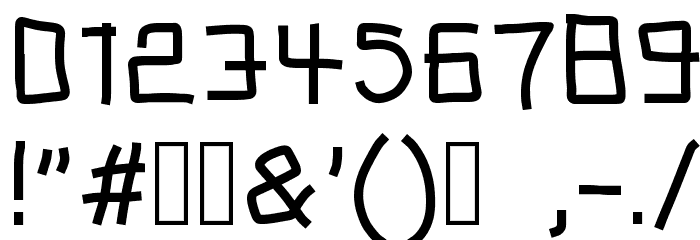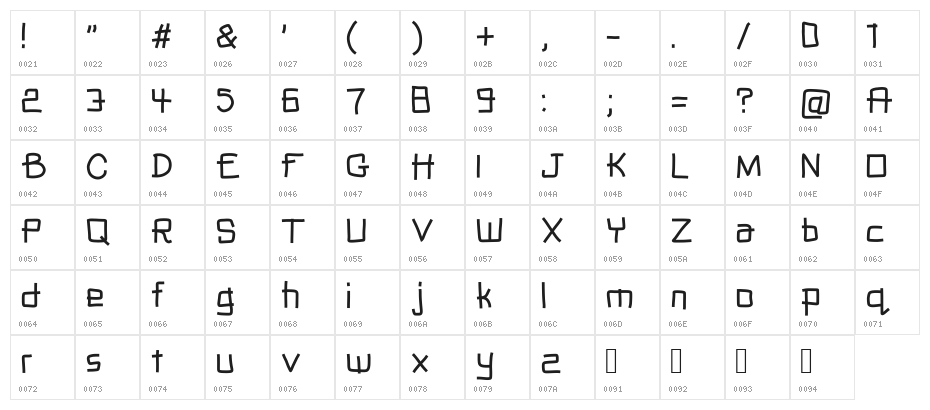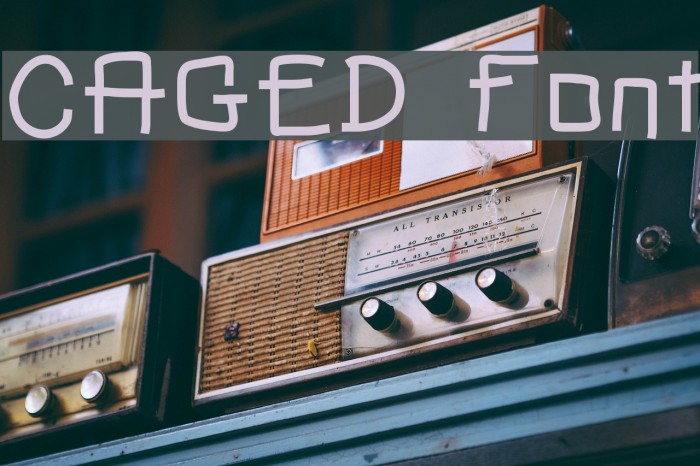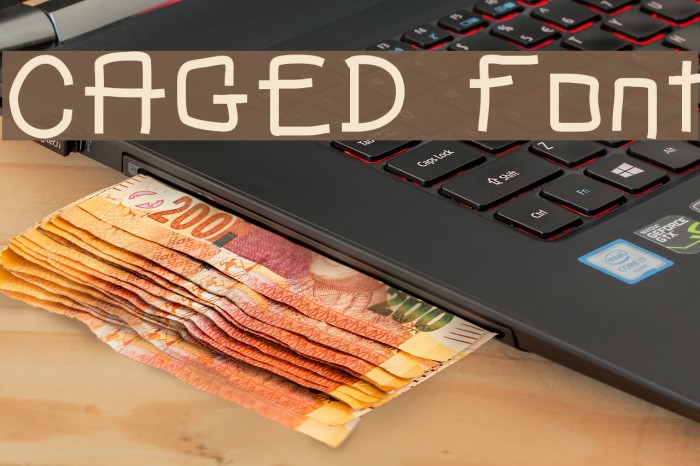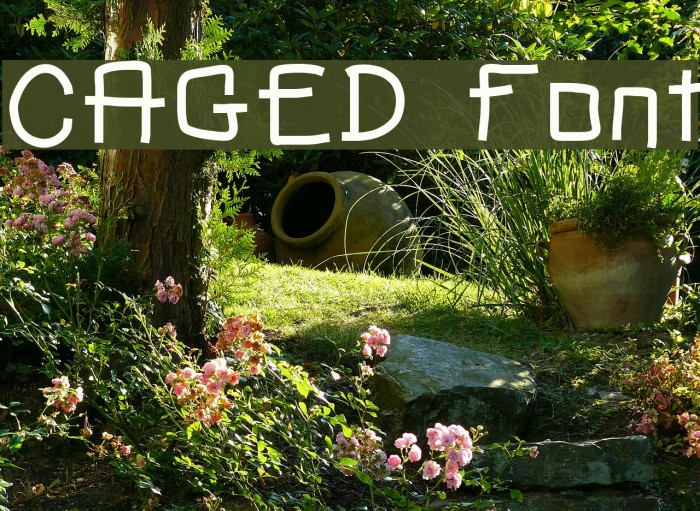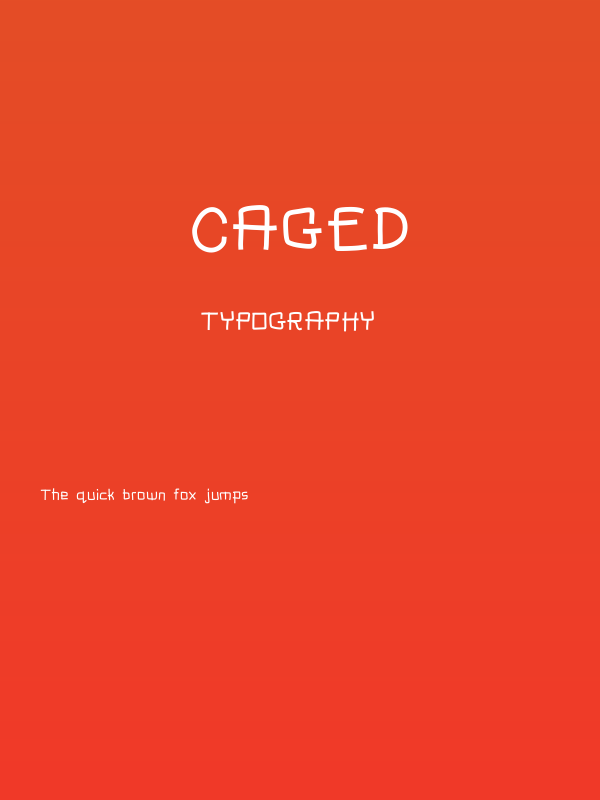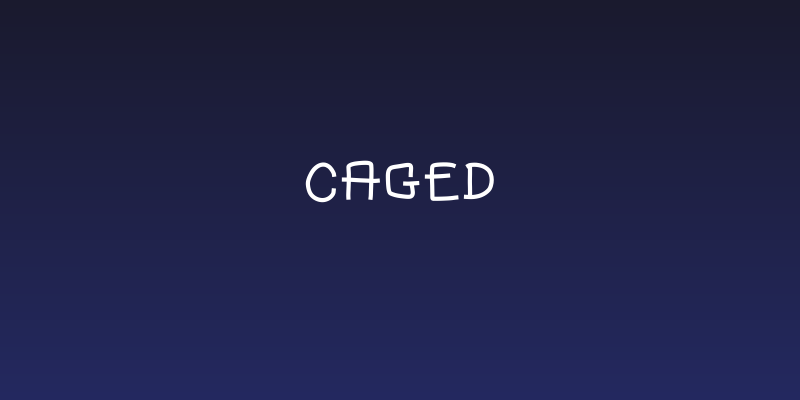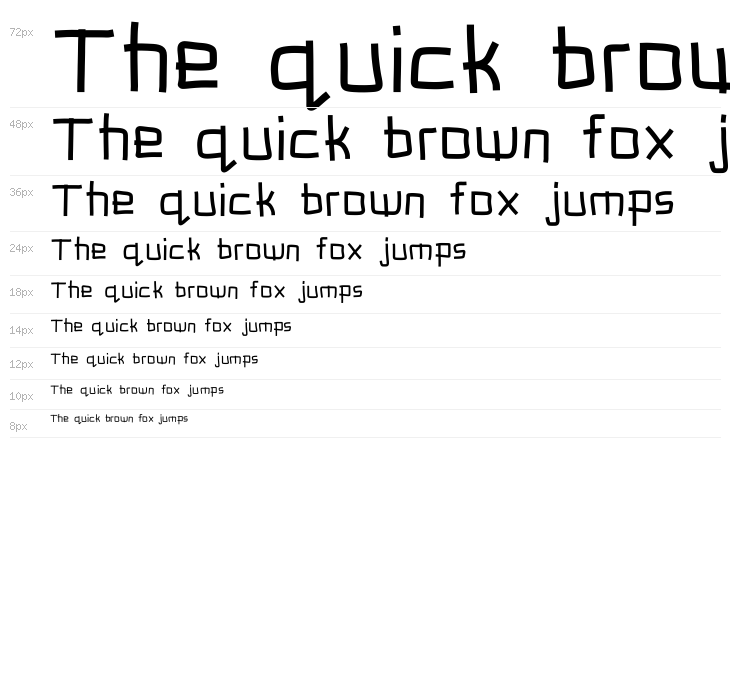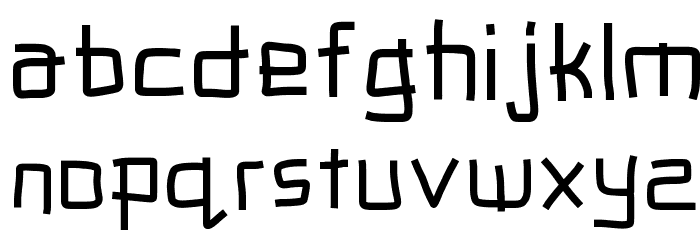
CAGED Font
CAGED Description
This font features a unique, hand-drawn style with a playful and slightly irregular appearance. The characters have a casual, informal look, with uneven lines and varying stroke thicknesses that give it a distinctive, artistic feel. The uppercase and lowercase letters maintain a consistent style, while the numerals and special characters complement the overall design. The font's quirky nature makes it stand out, adding personality and charm to any project. Its legibility is maintained despite the irregularities, making it suitable for various creative applications.